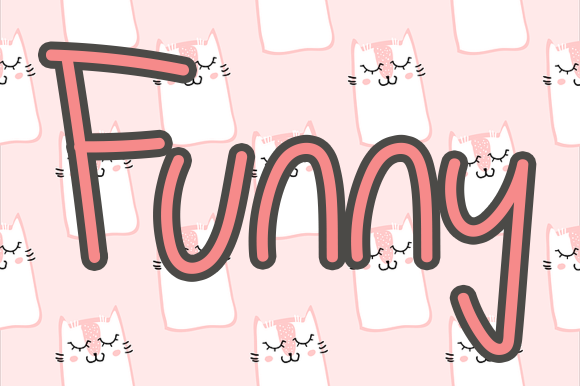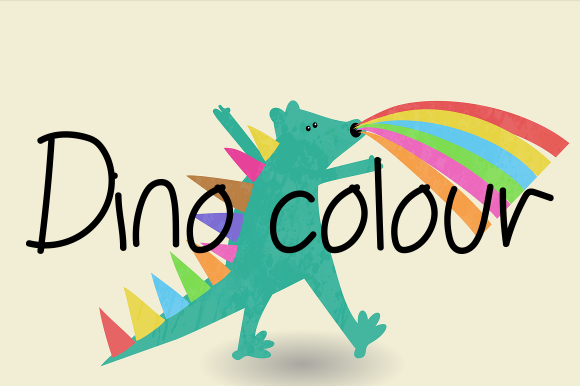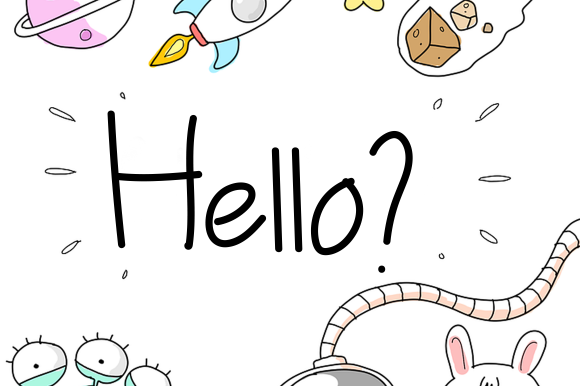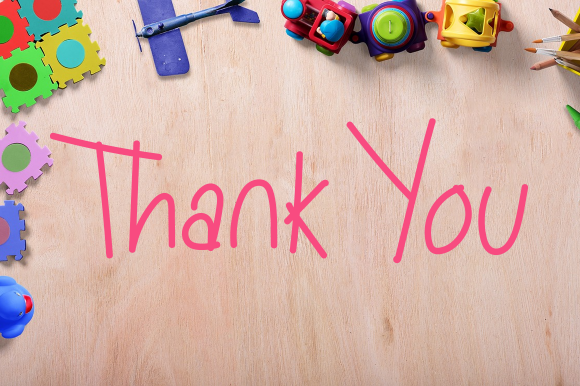
About Child Day Font
Child Day is a relaxed and fresh paint brushed handwritten font. Its natural and unique style makes it incredibly fitting to a large pool of designs. Have fun with this beautiful font and explore its endless variations.